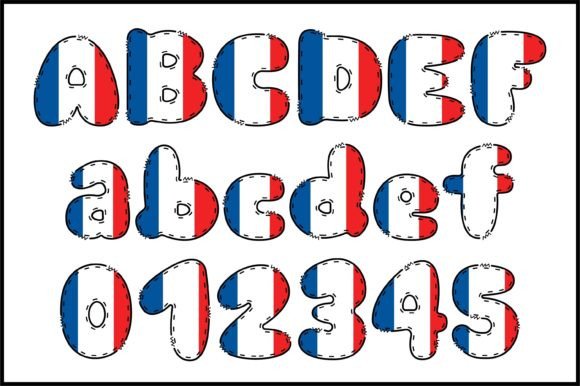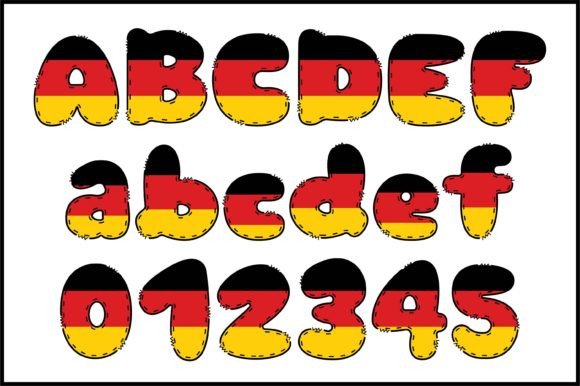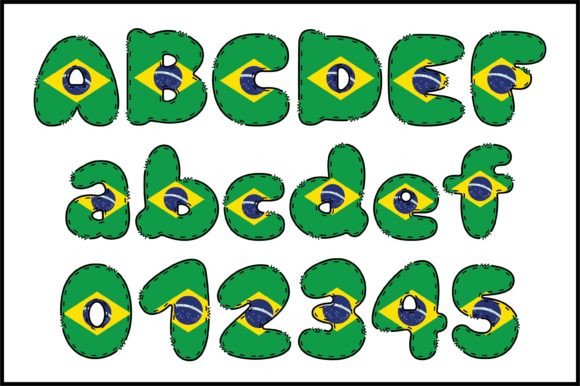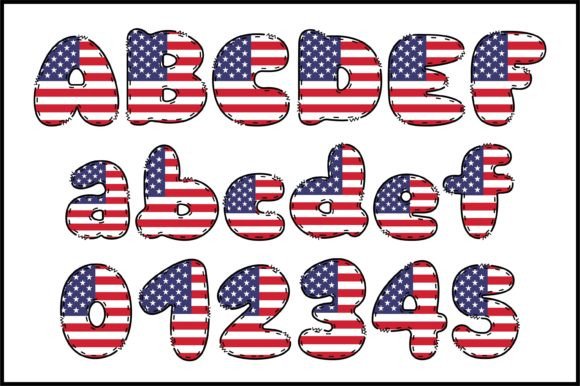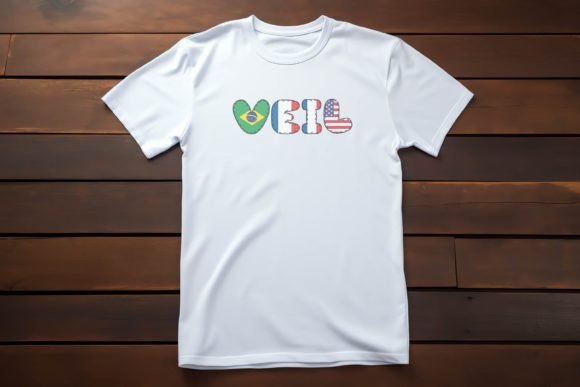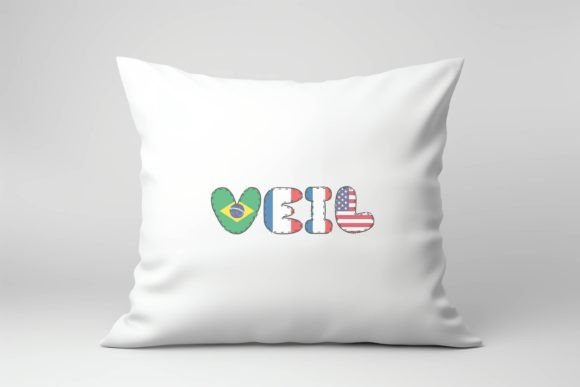
The Magic of Geography Font: A Designer’s Delight
I still remember the time I was working on a children’s book project, and I was on a mission to find the perfect font. The client wanted something playful, yet easy to read, and I was determined to deliver. After hours of scouring the internet, I stumbled upon the Geography Font, and it was love at first sight! ✨ The whimsical curves and colorful vibe instantly captured the essence of the project, and I knew I had found my match.
- ✨ Unique and playful design that’s perfect for creative projects
- ✅ Easy to read, even for young audiences
- 🎨 Highly versatile and adaptable to various design styles
While the Geography Font is an amazing addition to any design project, there are a few things to keep in mind: 🤔
- ⚠️ May not be suitable for formal or professional designs, as it can come across as too playful
- ⚠️ Some characters may not be suitable for use in small sizes, due to intricate details
- Experiment with OpenType features, such as glyphs and stylistic alternates, to add more personality to your design
- Explore the font’s features, such as swashes and ligatures, to add more flair to your design
The Story Behind Geography Font
The Geography Font was inspired by the works of renowned designer, Eduardo Blanco. Blanco’s passion for typography and illustration led him to create a font that would bring joy and playfulness to design projects. With its unique blend of curves and lines, the Geography Font has become a favorite among designers and crafters alike.
Q: What type of projects is the Geography Font best suited for?
A: The Geography Font is perfect for creative projects, such as children’s books, posters, invitations, greeting cards, and more.
Q: Is the Geography Font available in different languages?
A: The Geography Font may not have full language support, but it does include a range of characters and glyphs to help with multilingual designs.